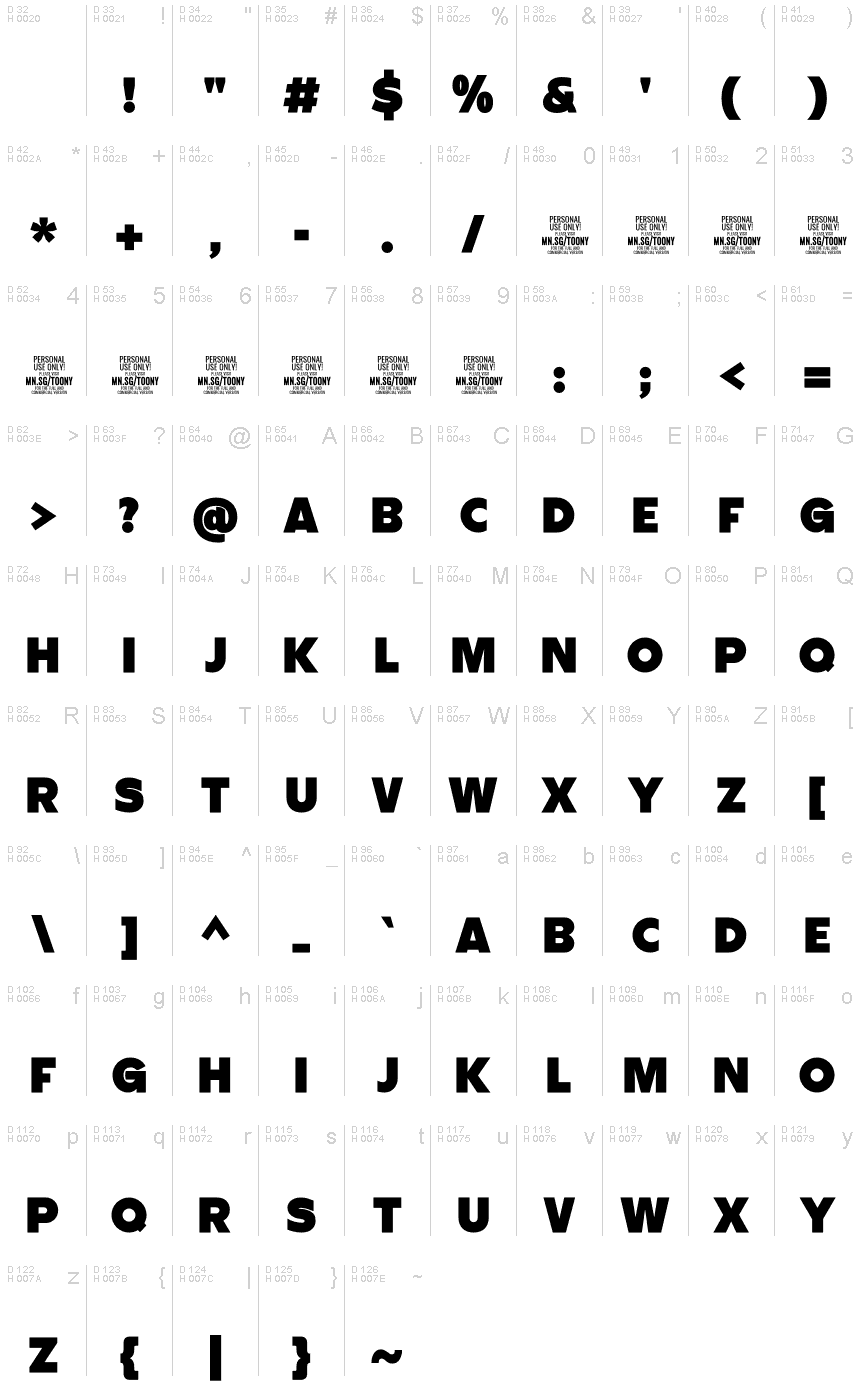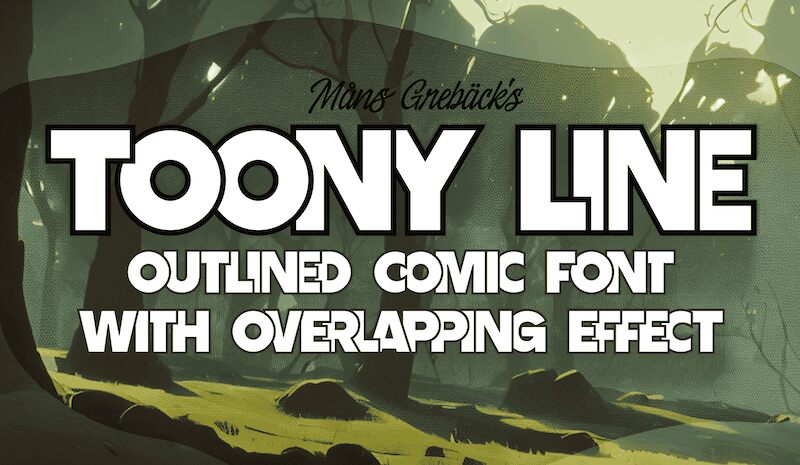
Toony Line Fill PERSONAL Regular
Toony Line Fill is an extra-bold, semi-expanded font that brings the whimsical charm of vintage cartoons to life. Designed by Mans Greback, this comic sans serif font is perfect for projects that need a touch of playful nostalgia. Its sharp, sans-serif characters dance on the page with a joy reminiscent of our favorite animated classics.
Whether you're creating a children's book, designing a logo for a fun-loving brand, or adding a quirky twist to your website's headlines, Toony Line Fill will add that magical touch and unapologetic boldness found in comic strips and street art.